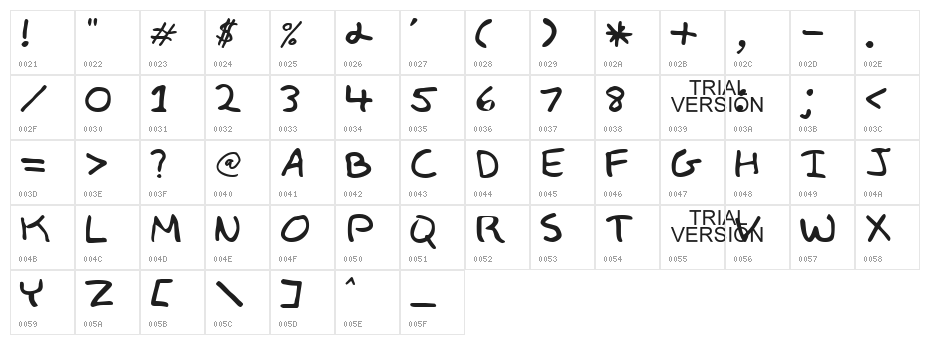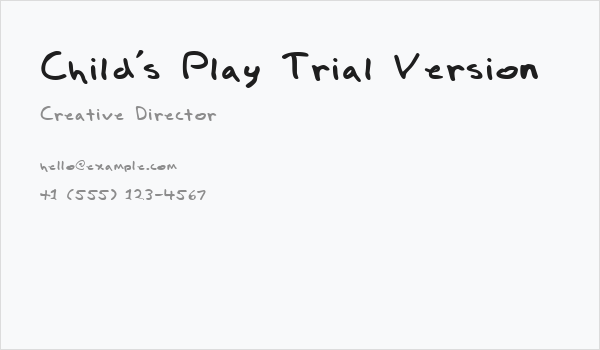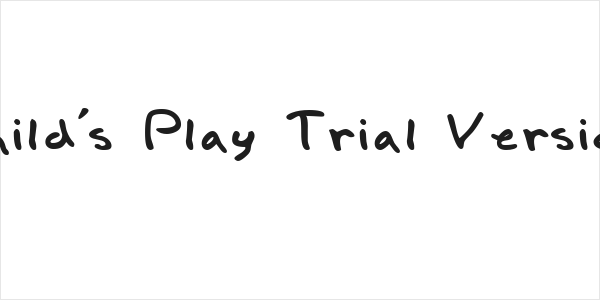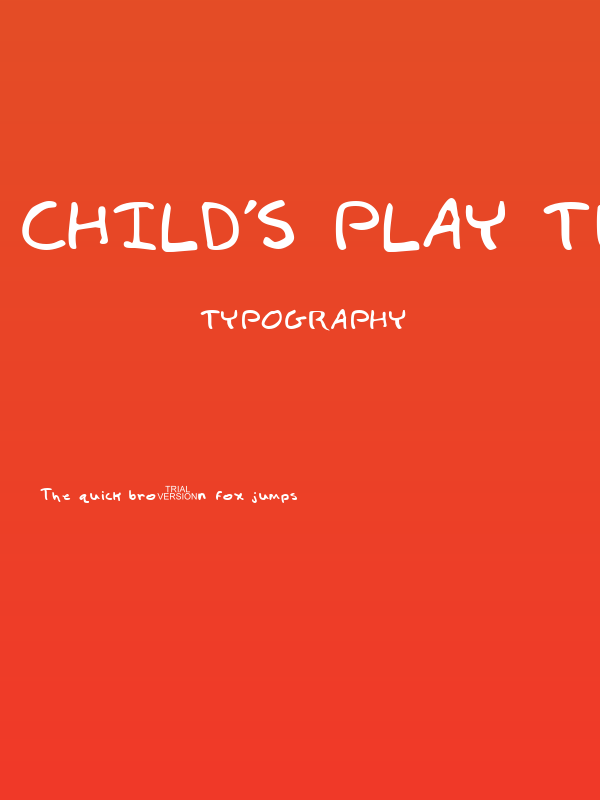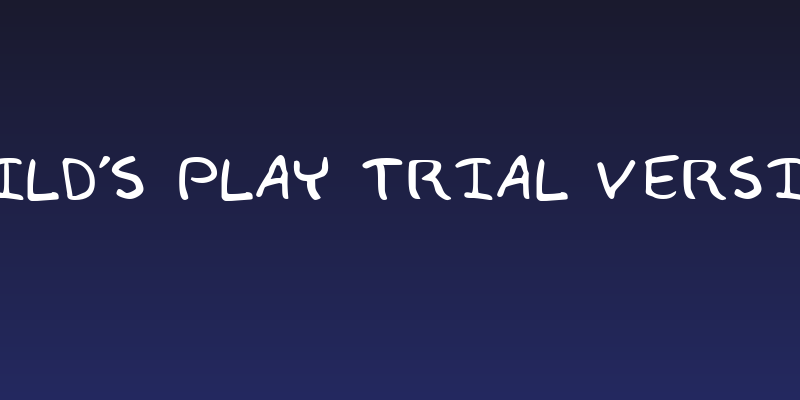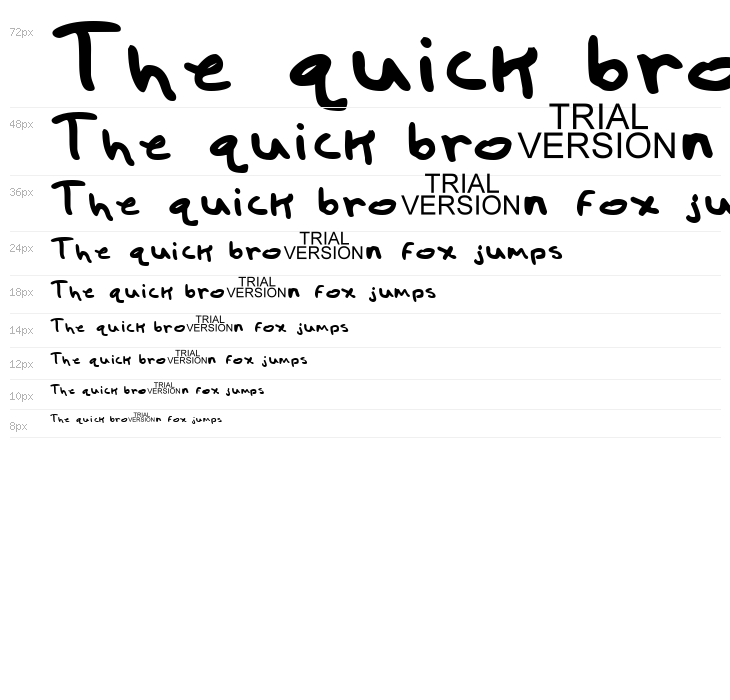
Child's Play Trial Version Font
Child's Play Trial Version Description
This playful and whimsical font features a handwritten style that exudes a sense of fun and creativity. The letters are slightly irregular, giving it a casual and informal appearance. The strokes are bold and rounded, making it highly legible while maintaining a friendly and approachable vibe. This font is perfect for projects that require a touch of personality and charm. It includes a full set of uppercase and lowercase letters, numbers, and a variety of special characters, ensuring versatility for different design needs.
| Proposed Projects | Ideal for children's books, playful branding, greeting cards, and creative posters. |